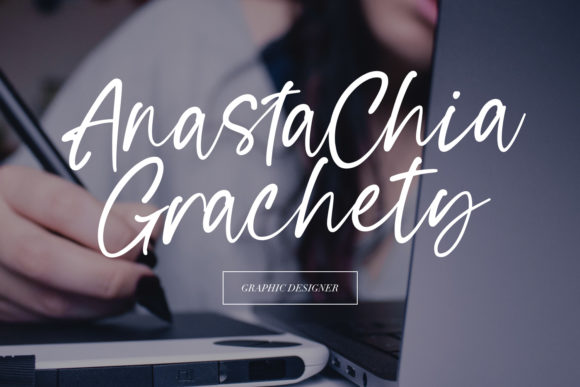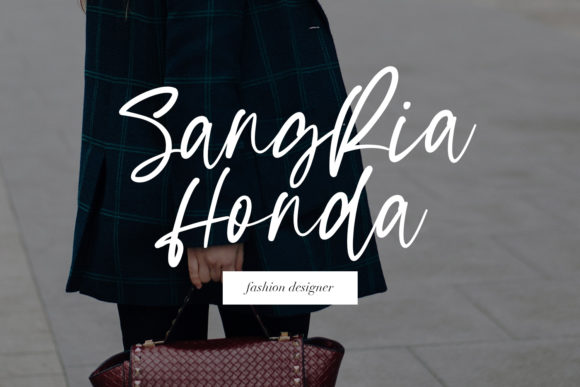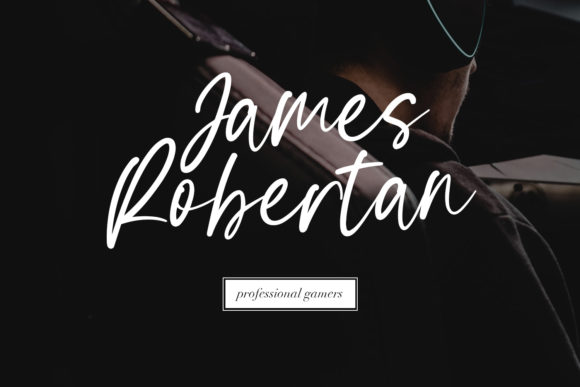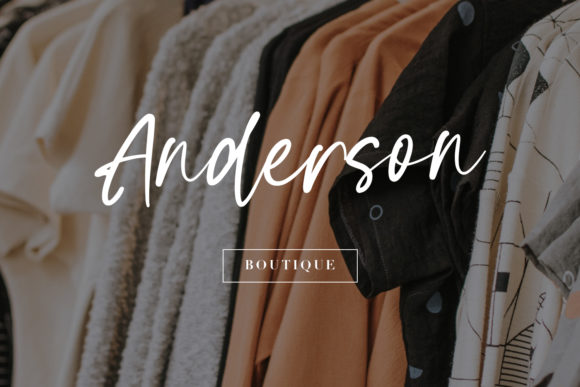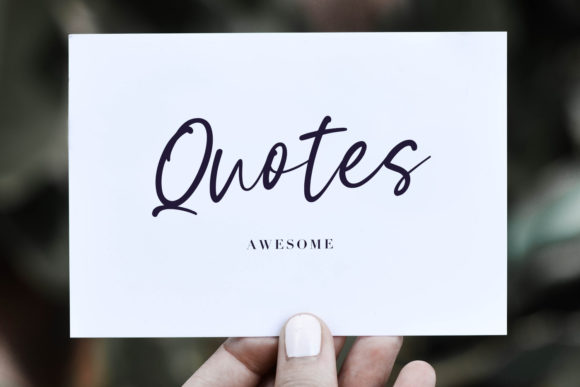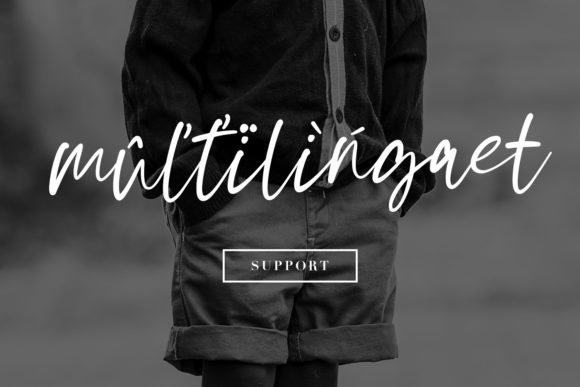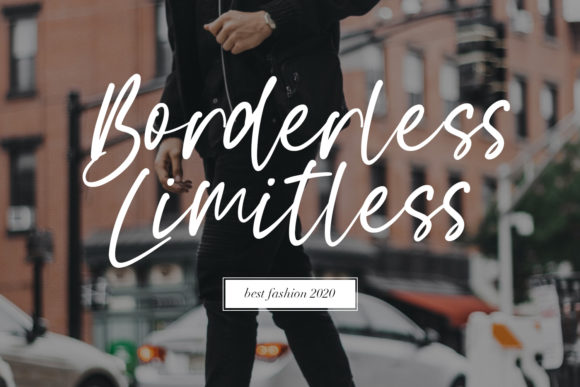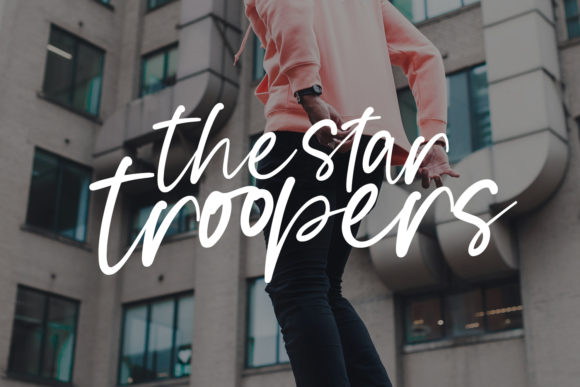
HomeScript FontsMc Hambrug Font Script Fonts Mc Hambrug Font FacebookXPinterestWhatsApp Mc Hambrug Font Poster 2 Mc Hambrug Font Poster 3 Mc Hambrug Font Poster 4 Mc Hambrug Font Poster 5 Mc Hambrug Font Poster 6 Mc Hambrug Font Poster 7 Mc Hambrug Font Poster 8 Mc Hambrug Font Poster 9 Mc Hambrug Font Poster 10 About Mc Hambrug Font Mc Hambrug is a lighthearted and dynamic script with a modern feel. Fall in love with its authentic charm. DOWNLOAD ON CREATIVE FABRICAThis font is sold and delivered by Creative Fabrica. Font Canyon may earn a commission if you buy through this link. People also explored Giora Whisper Font Woyo Font Charlie Font Turtle Circle Font Sinawane Font Wedding Handmade Font Salted Caramel Font Rexless Font Hello Betty Font 285 0 TagsMc Hambrug Font Previous articleAtthaka FontNext articlePraha Font LEAVE A REPLY Cancel reply Comment: Please enter your comment! Name:* Please enter your name here Email:* You have entered an incorrect email address! Please enter your email address here Website: Save my name, email, and website in this browser for the next time I comment. Personal Use Free Numberpile Personal Use Free Read more about this font Masker Area Personal Use Free Read more about this font Messy Personal Use Free Read more about this font The Bocah Personal Use Free Read more about this font BLOG Elegant Wedding Invitation Fonts – Handwritten & Script Fonts Elegant Wedding Invitation Fonts Your wedding day is one of the most important moments of your life, and every detail matters—including your invitation design. Our... Top 10 Handwritten Fonts That Elevate Your Designs Where to Buy American Fonts Online in 2024 How to Cut Any Font on Cricut: Convert a Font to SVG (Free)